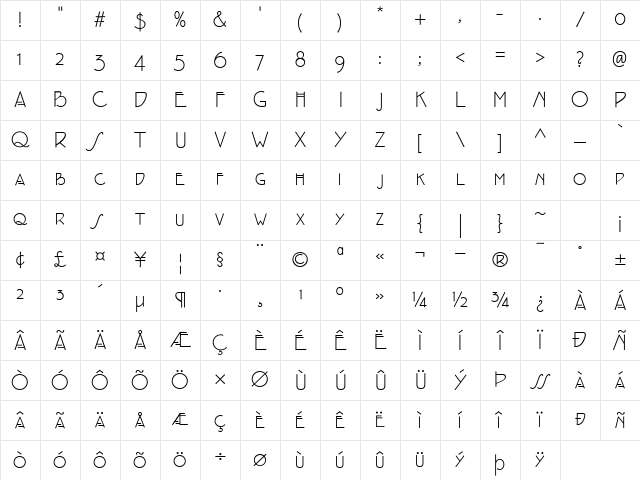
EaglefeatherSmallCaps Light
Design Context for EaglefeatherSmallCaps
EaglefeatherSmallCaps is a composed and adaptable typeface that performs quietly and consistently across a wide range of design contexts. Its slender proportions lend an understated elegance to any composition.